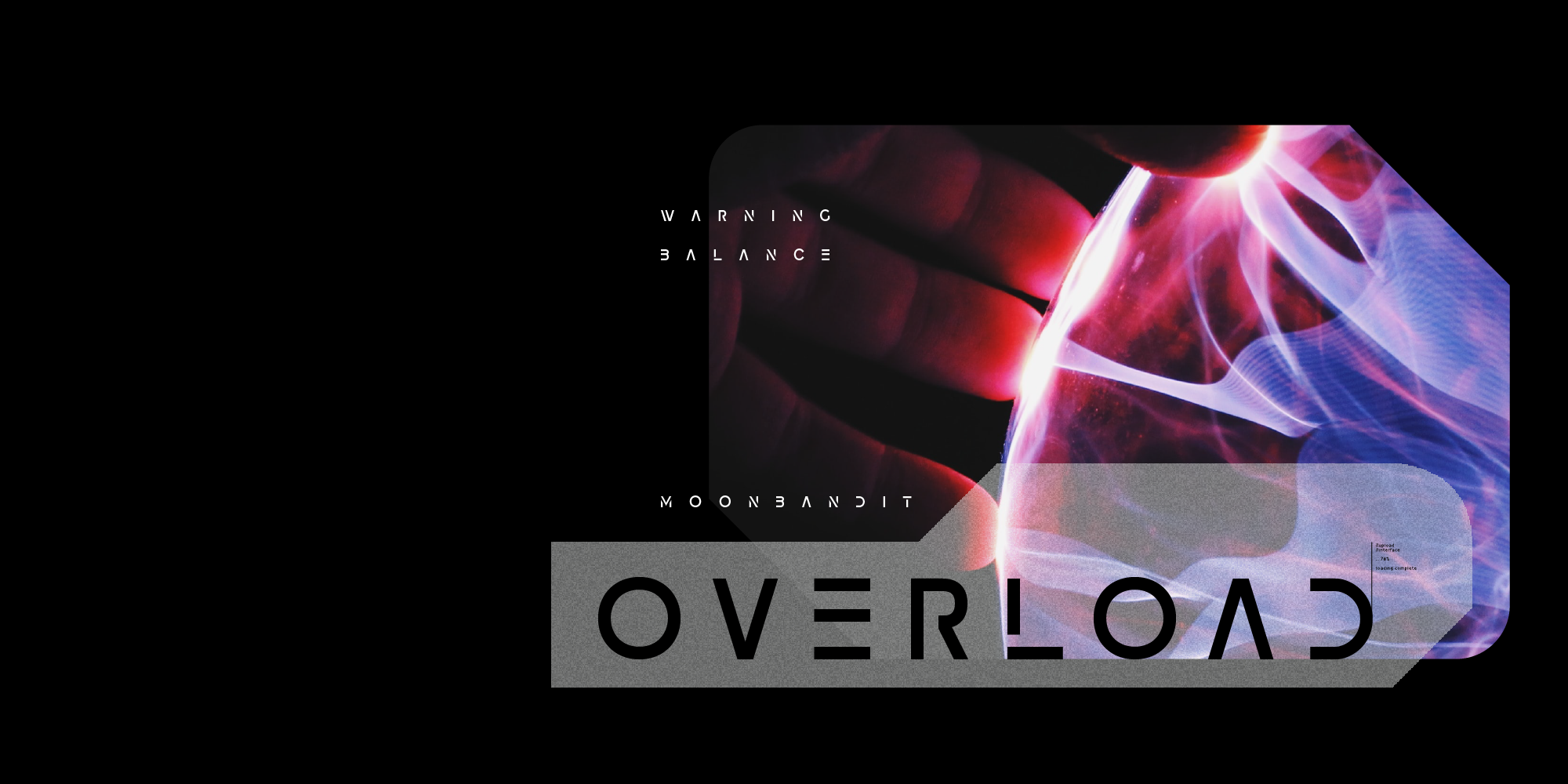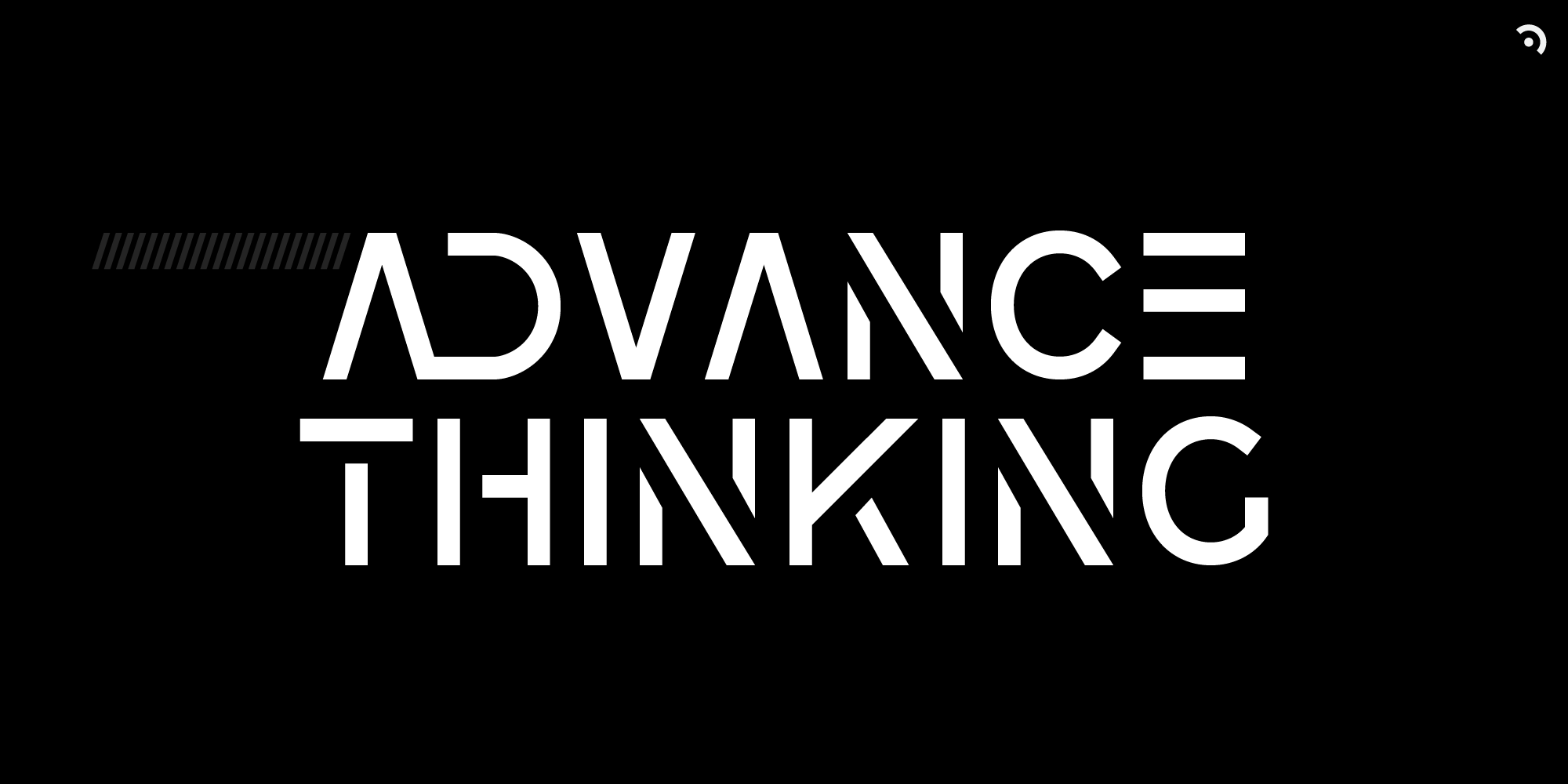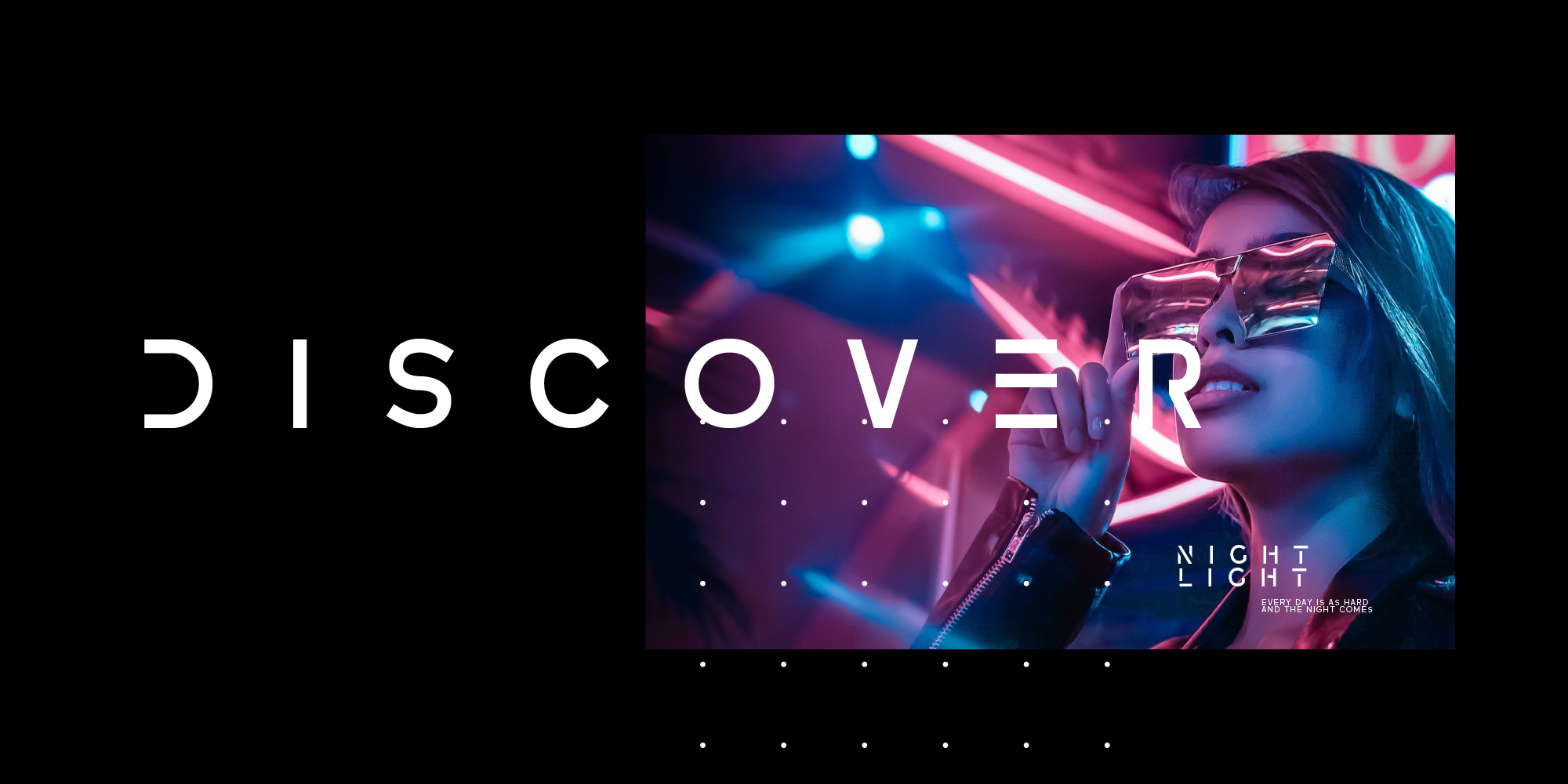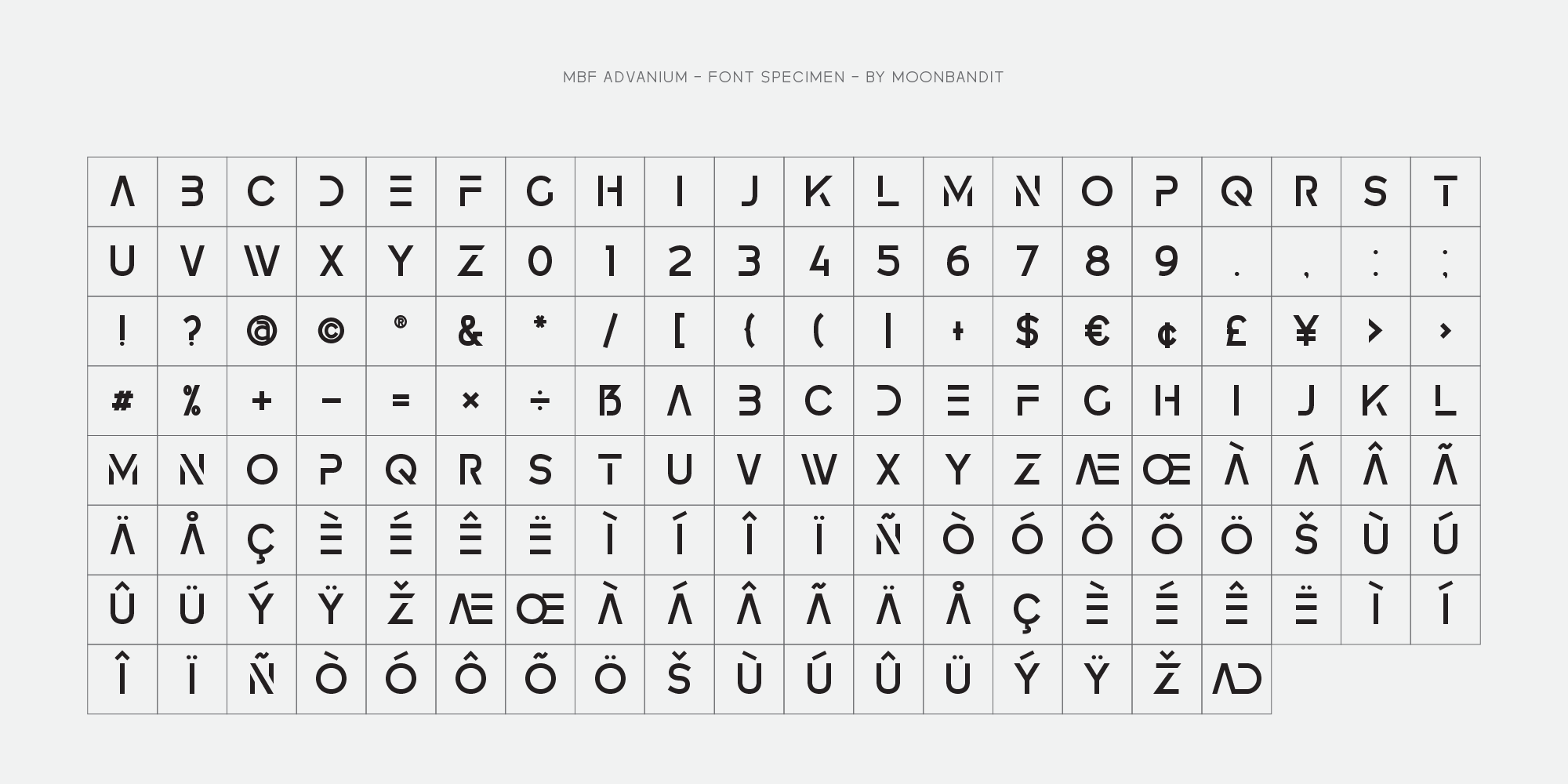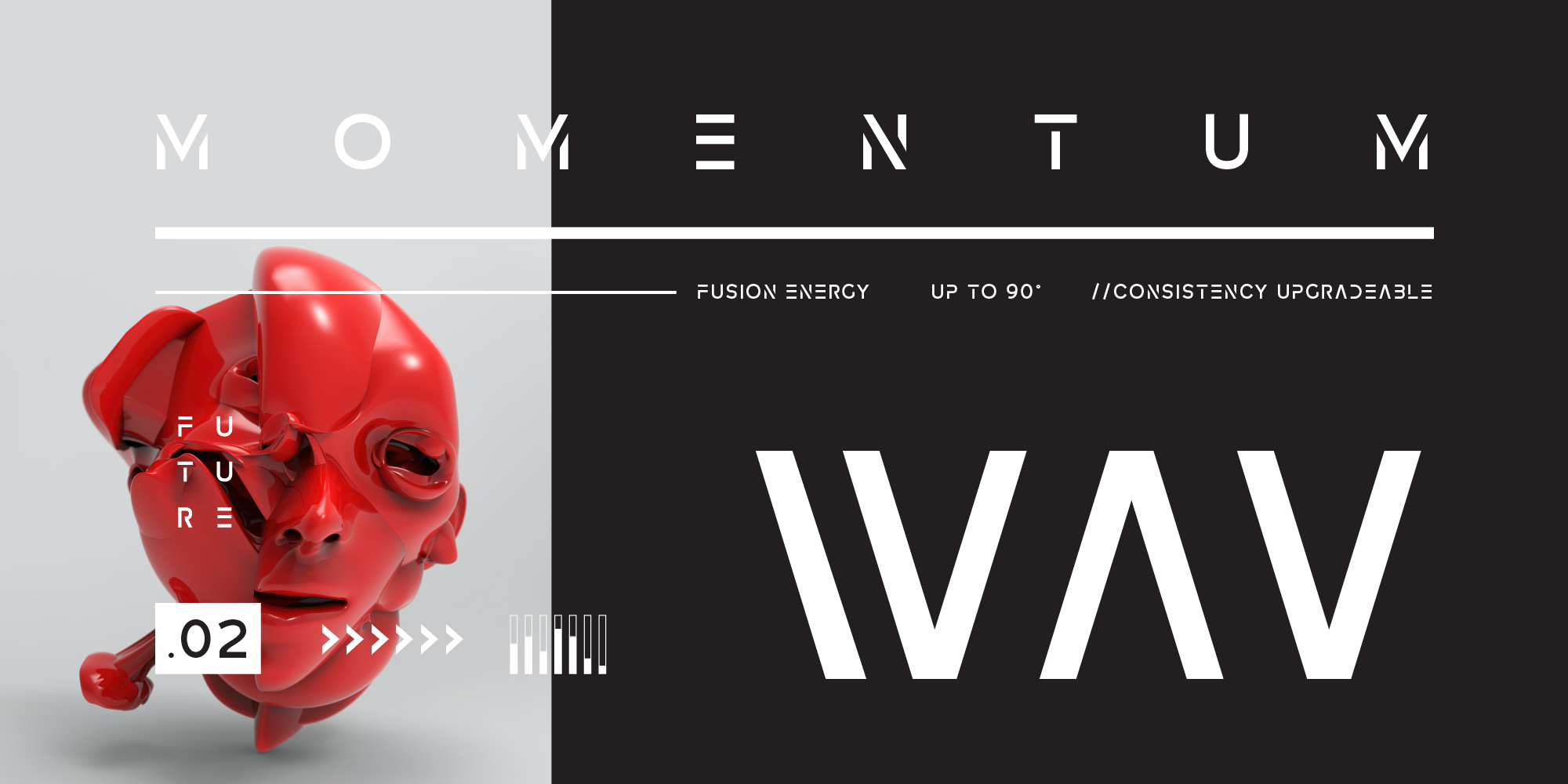
MBF Advanium
Critical thinking is needed for advancement
Advanium is an all caps font, built for logo and headlines. This display sans typeface is packed with futuristic sci-fi theme and still leave some room open to any future modification if needed.